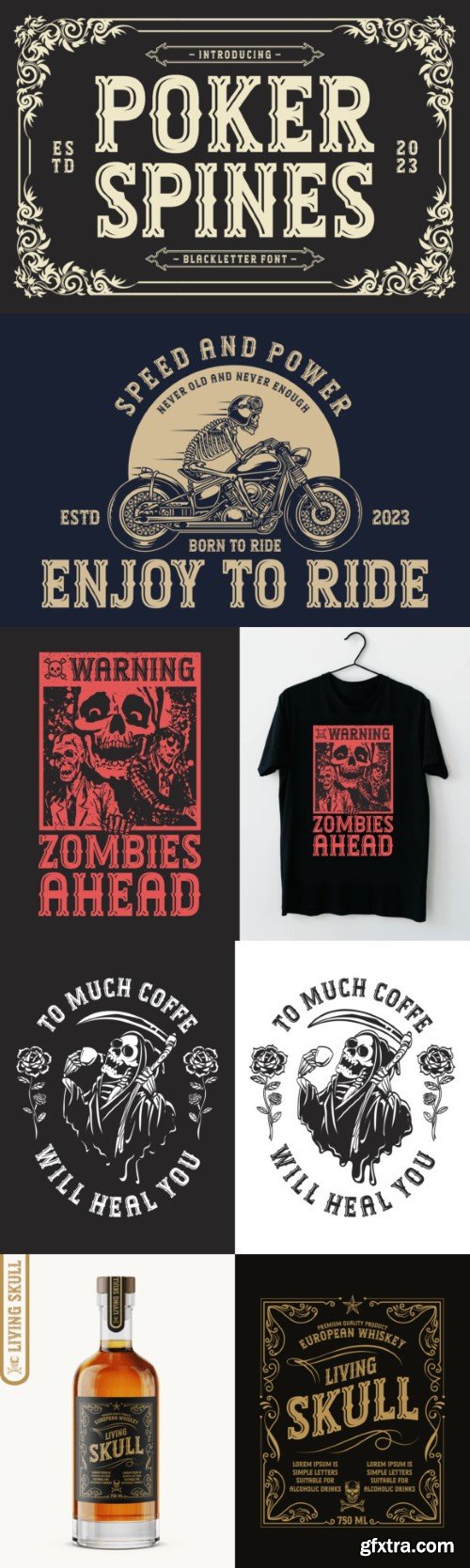
扑克脊椎字体
Poker Spines is a thick and dark blackletter font. This impressive typeface radiates a grunge and powerful aesthetic, making it ideal for projects that require this type of feel. Use it to create remarkable posters, advertisements, logos, signs, t-shirts, headlines, and more.